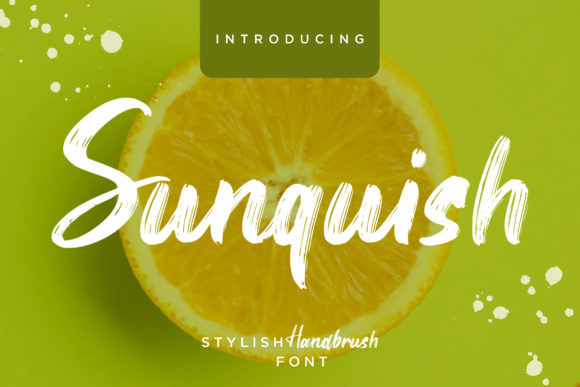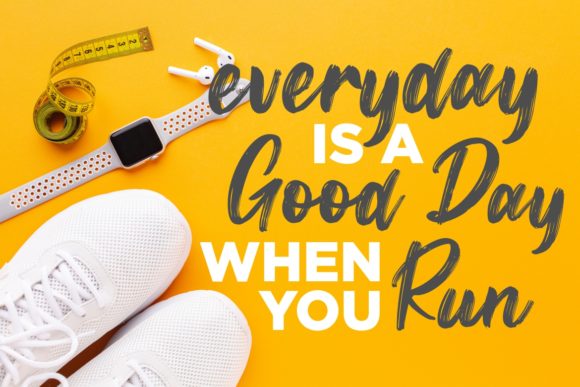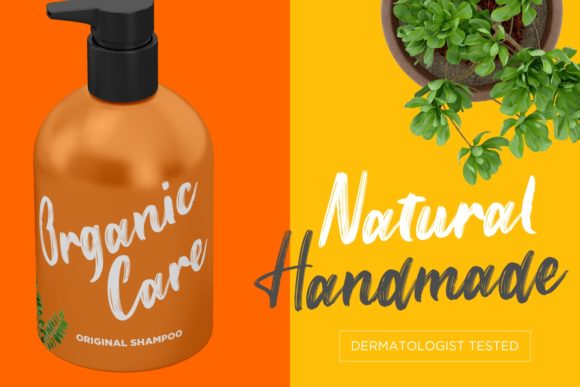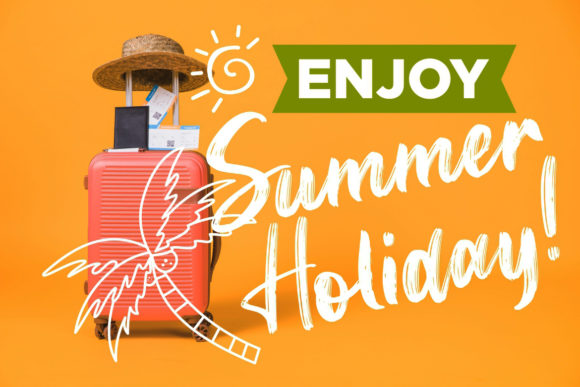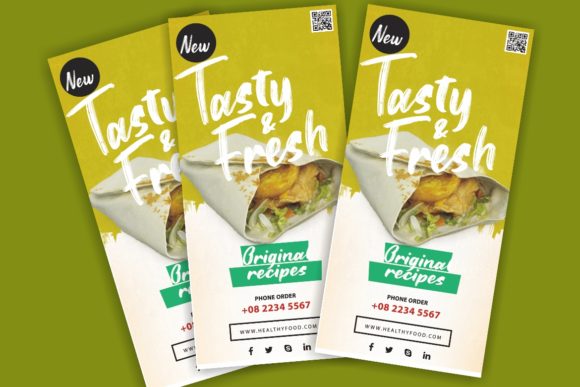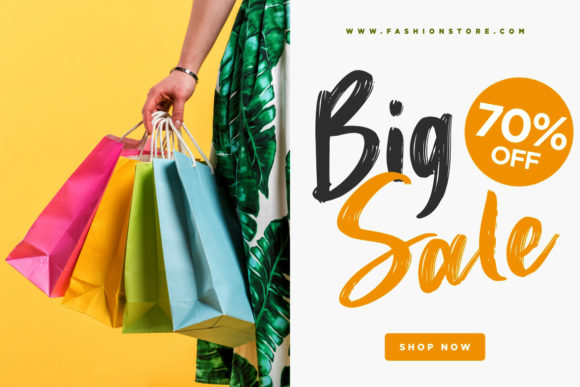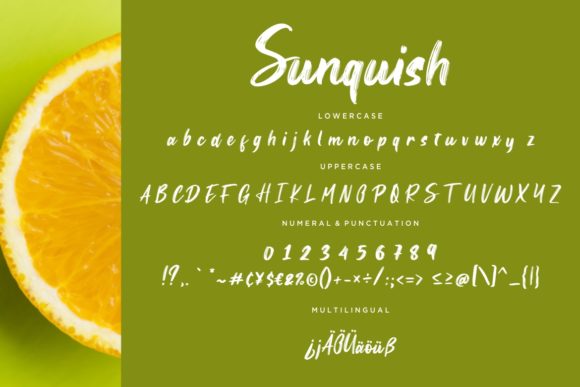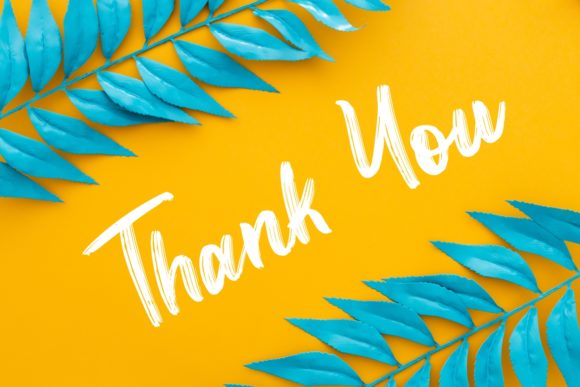
Sunquish Font
About Sunquish Font
Sunquish simplifies elegance into one truly outstanding handwritten font. Whether it’s for web, print, moving images or anything else this font will look spectacular.